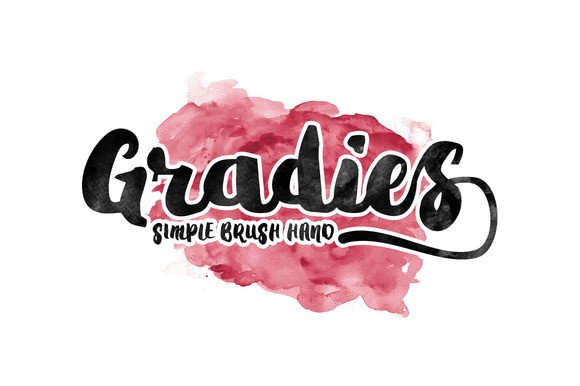
Gradies Font
Introducing the captivating Gradies Font, a graceful script that will dance across your designs with effortless charm. Step into the realm of captivating creativity, where each letter flows with an organic touch, tempting you to pen your most heartfelt stories and ignite your artistic vision.
Gradies Font's enchanting dance is a true masterpiece, crafted by the talented Ijem RockArt. Its playful personality and undeniable uniqueness will enchant your audience, leaving an unforgettable impression that will make your creations stand out from the crowd.
Whether you're crafting invitations that whisper of special occasions, branding that exudes sophistication, or social media posts that spark joy, Gradies Font is your perfect companion. Its versatility knows no bounds, allowing you to effortlessly elevate any project with a touch of elegance and charm.
So, dear creatives, embrace the allure of Gradies Font and let your imagination soar. Immerse yourself in a world of whimsical wonder and heartfelt expression, where every stroke of your pen becomes a masterpiece.